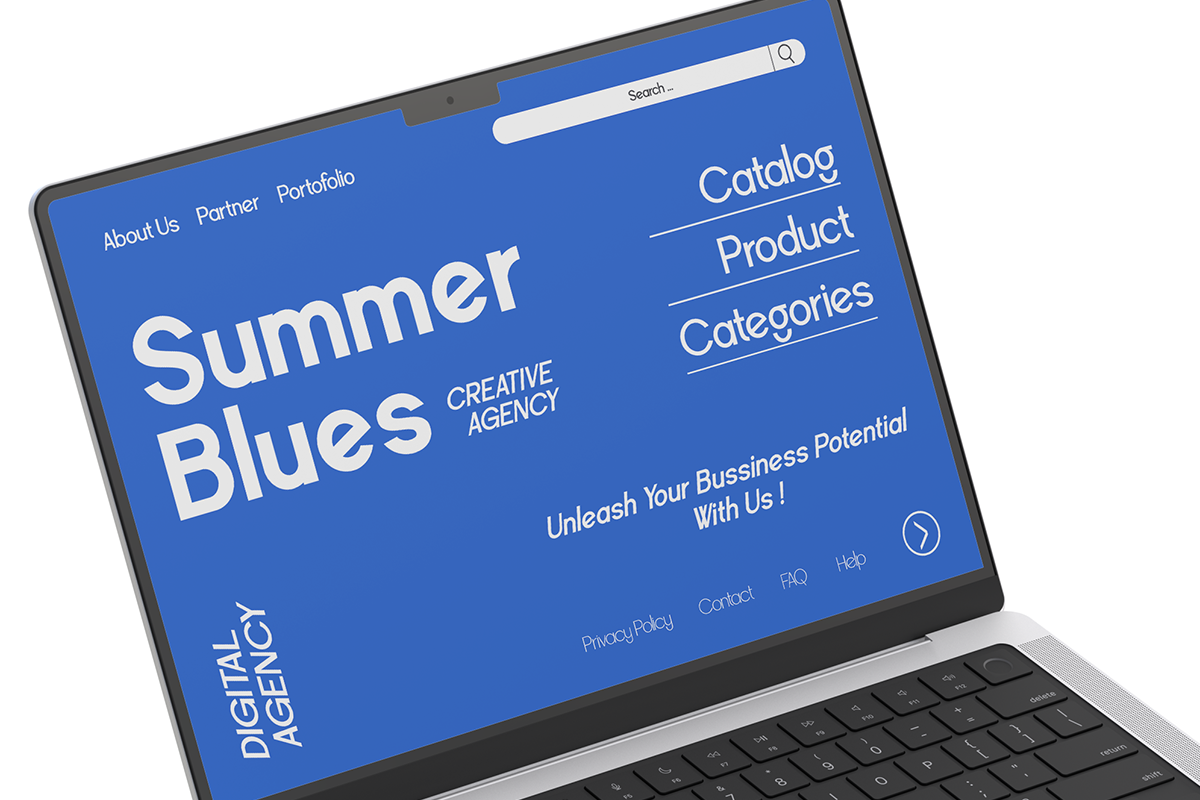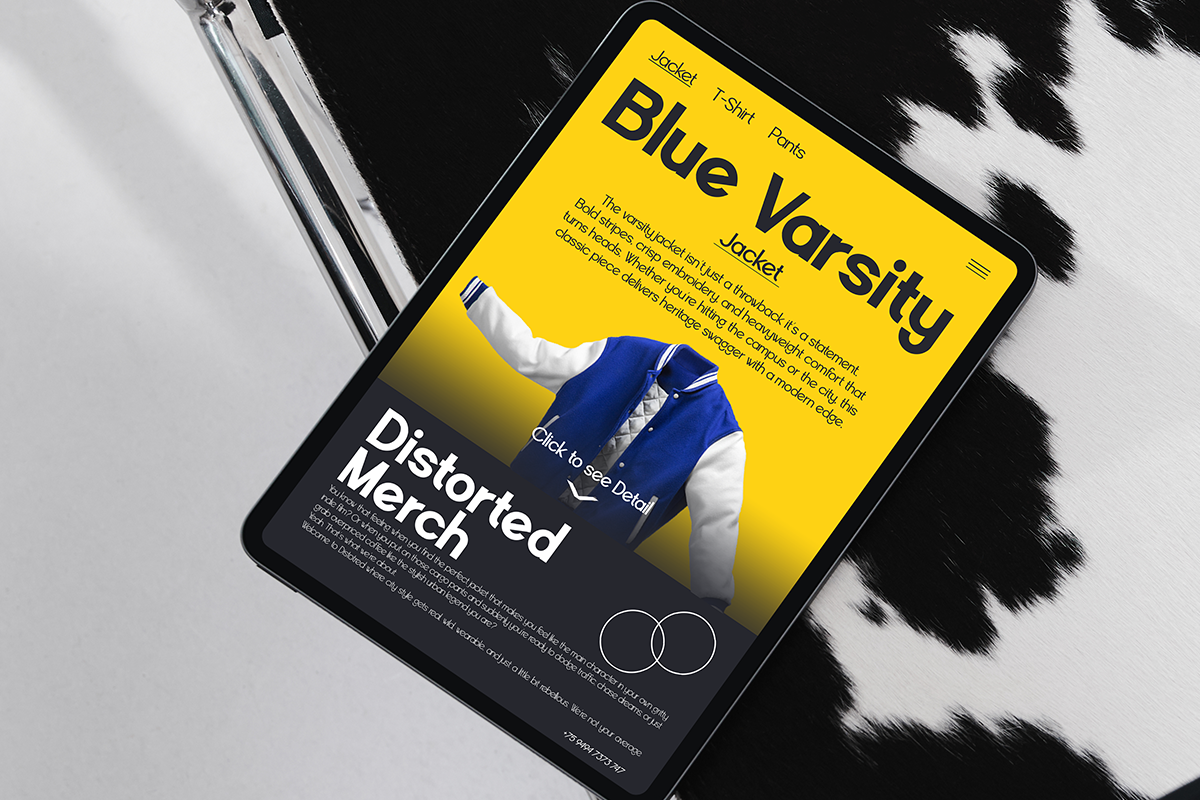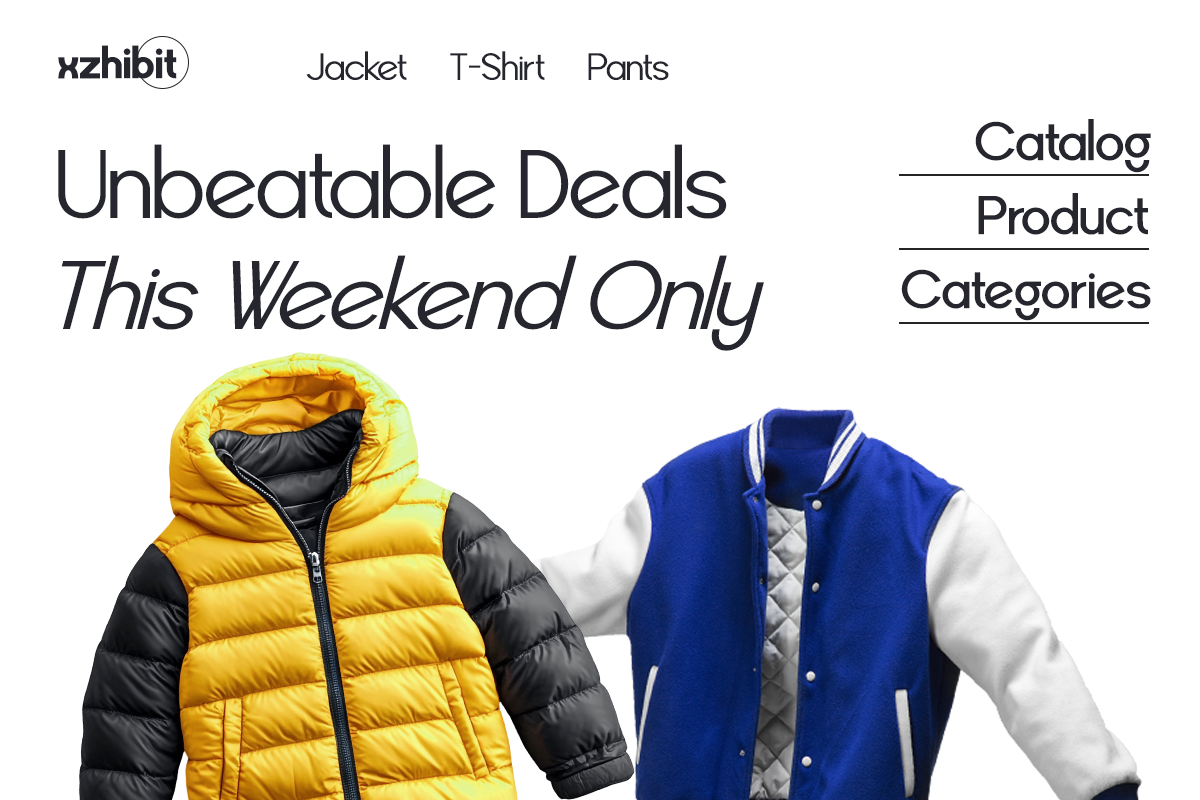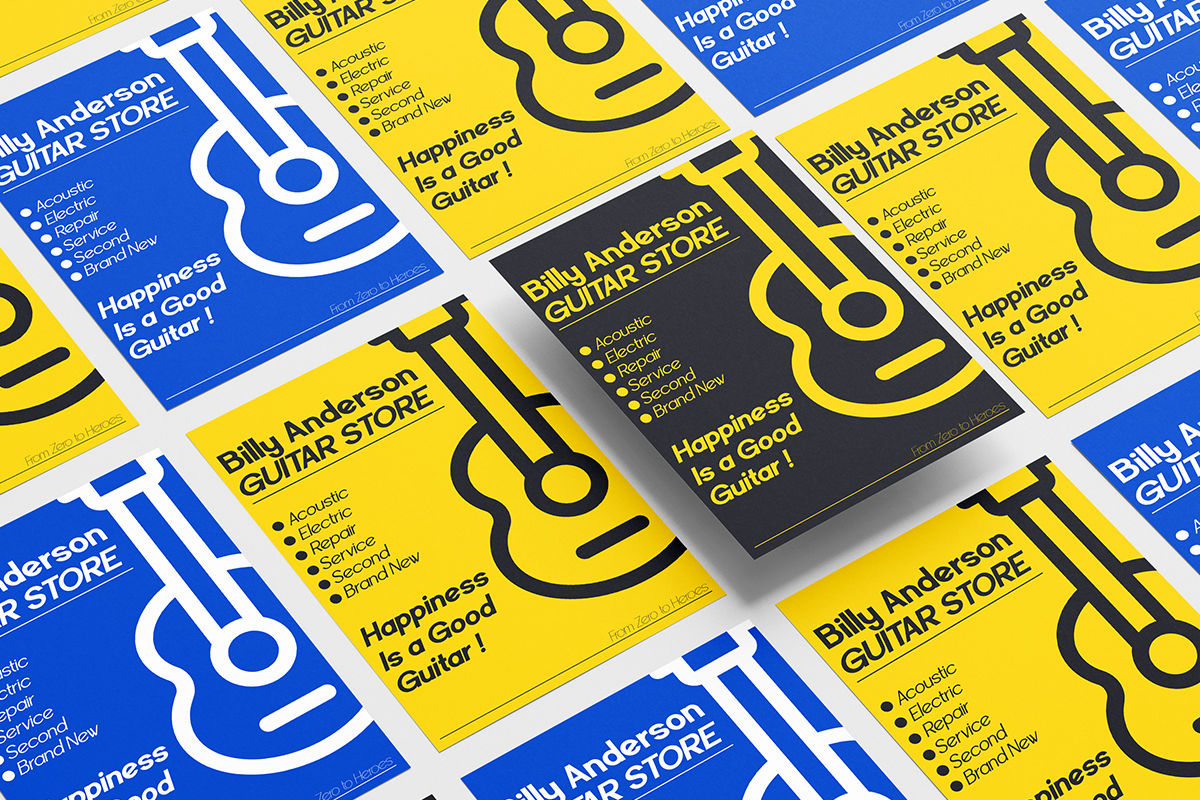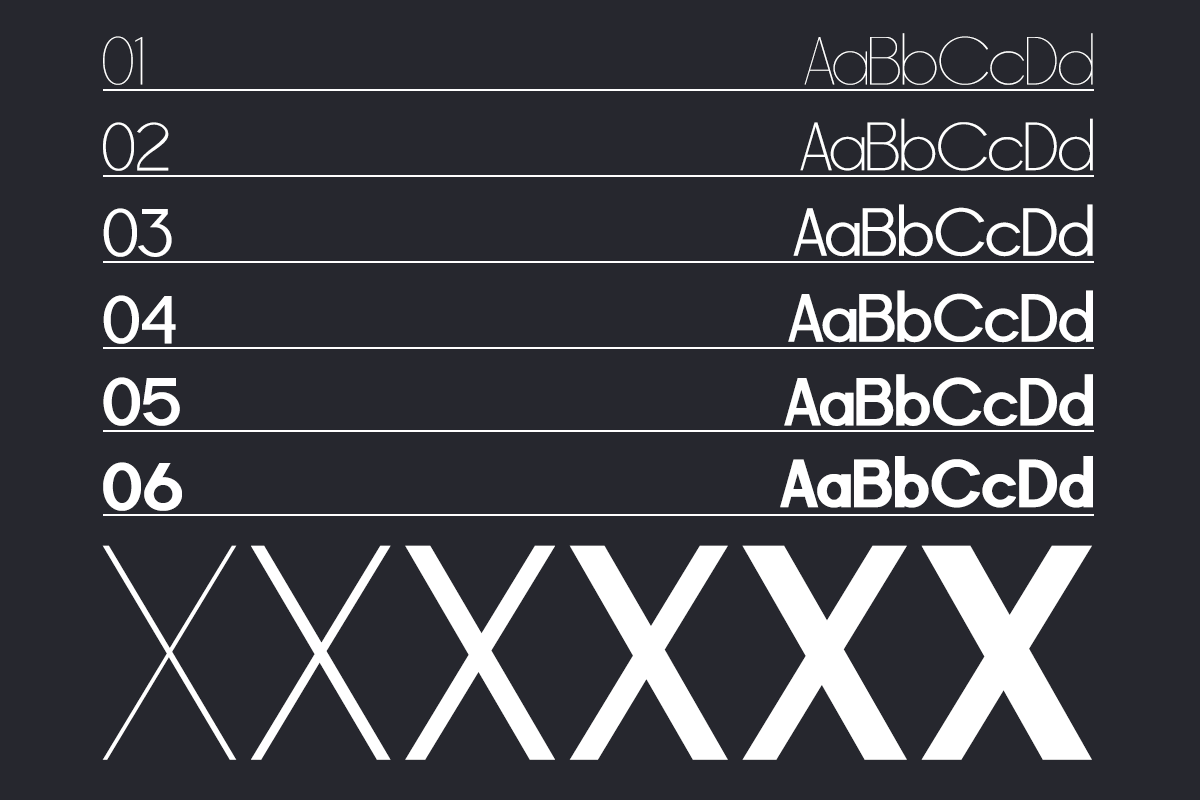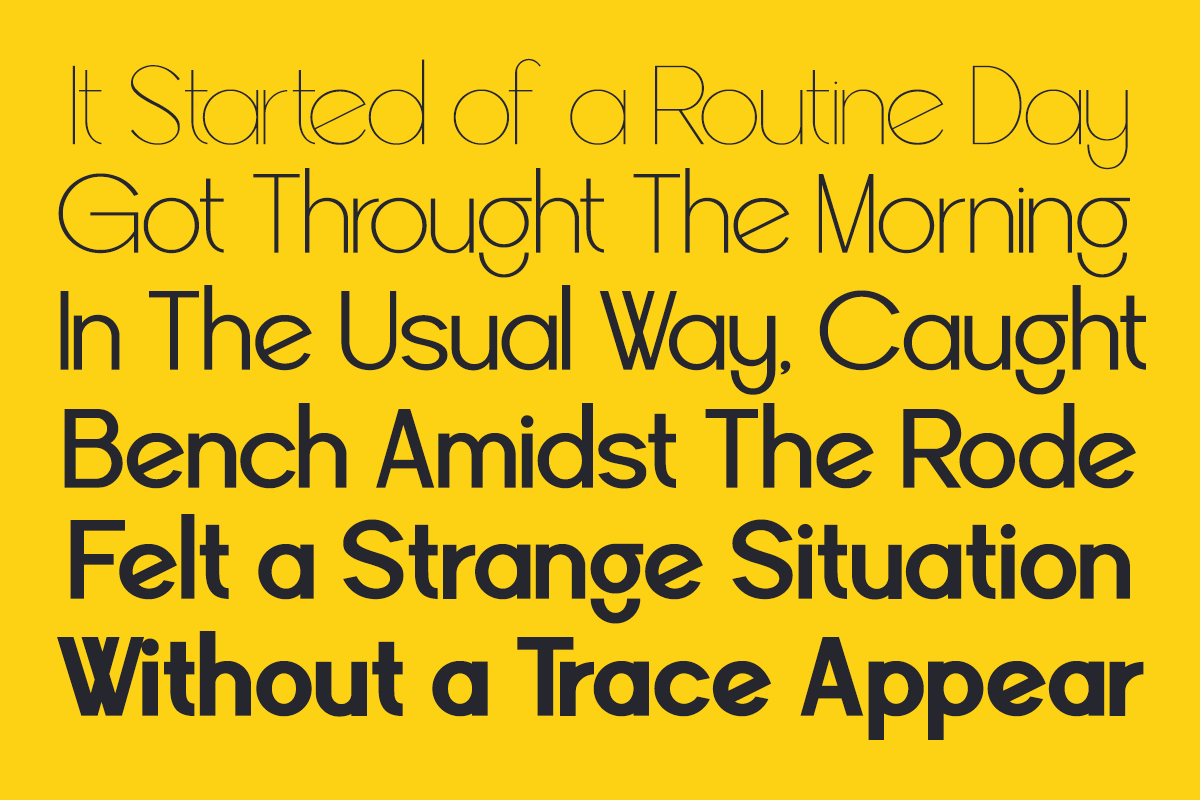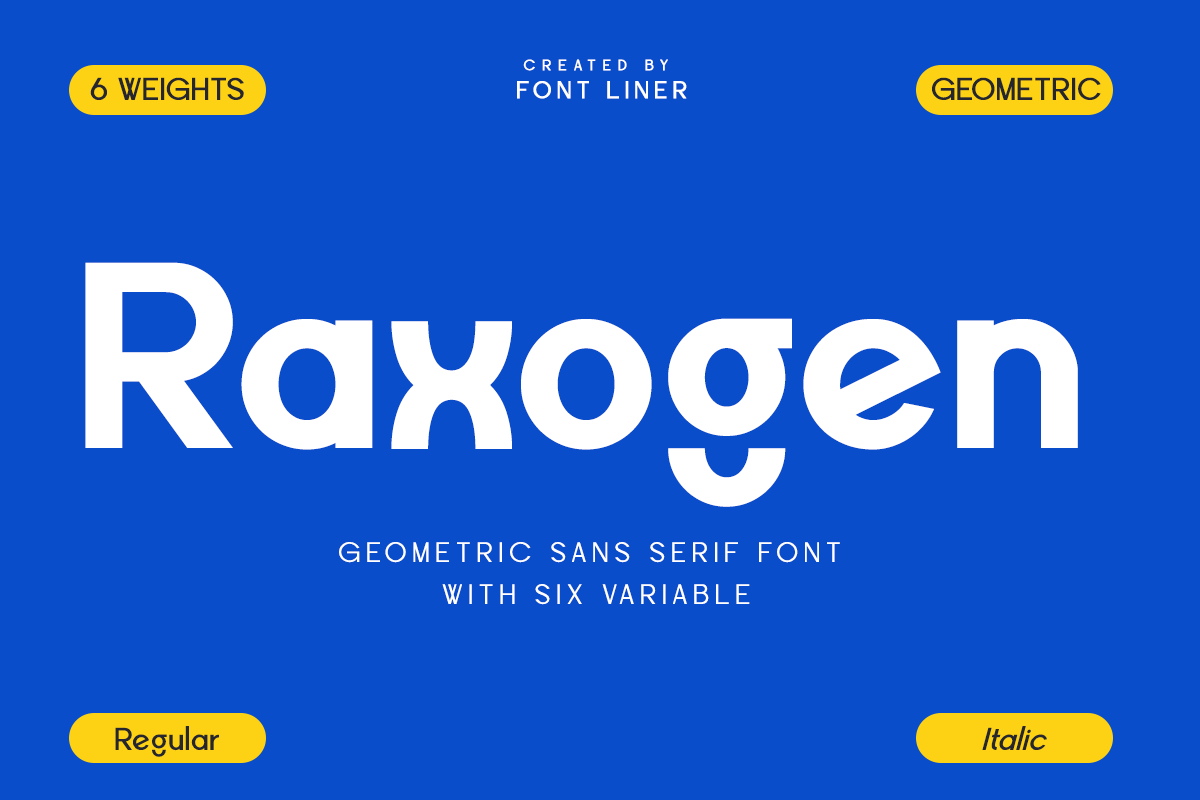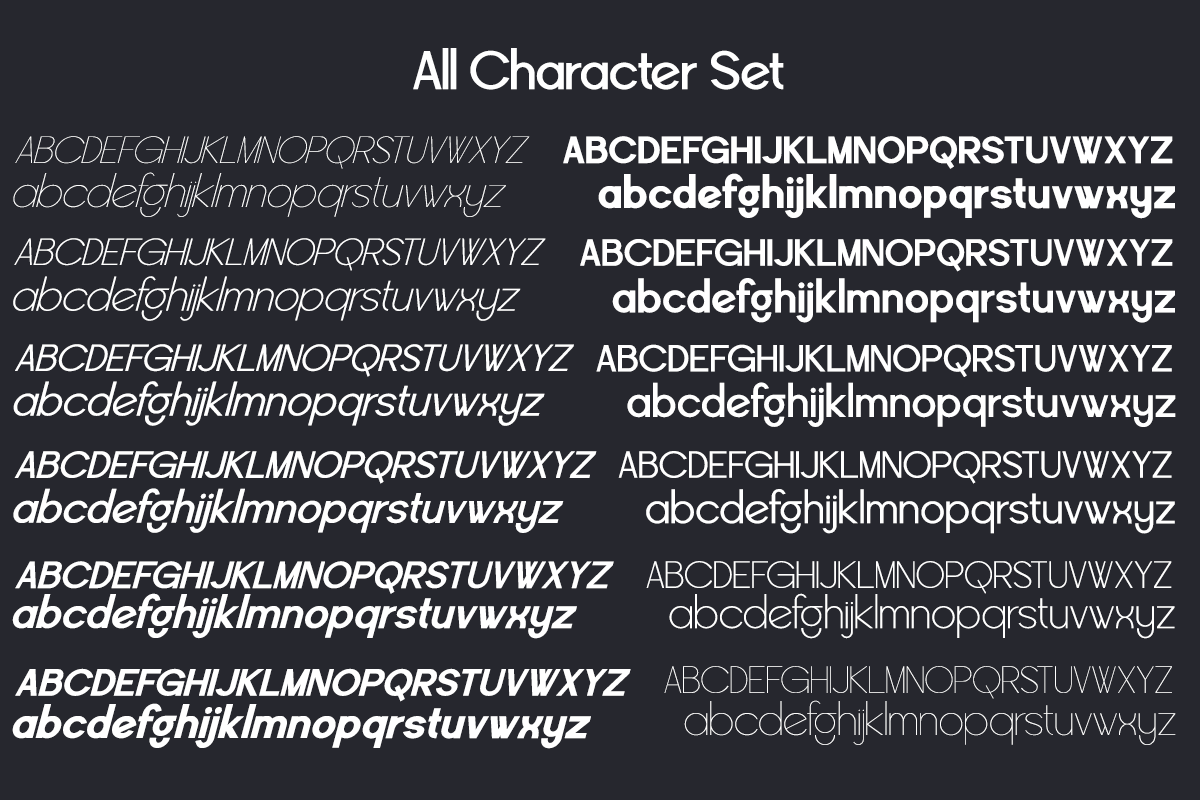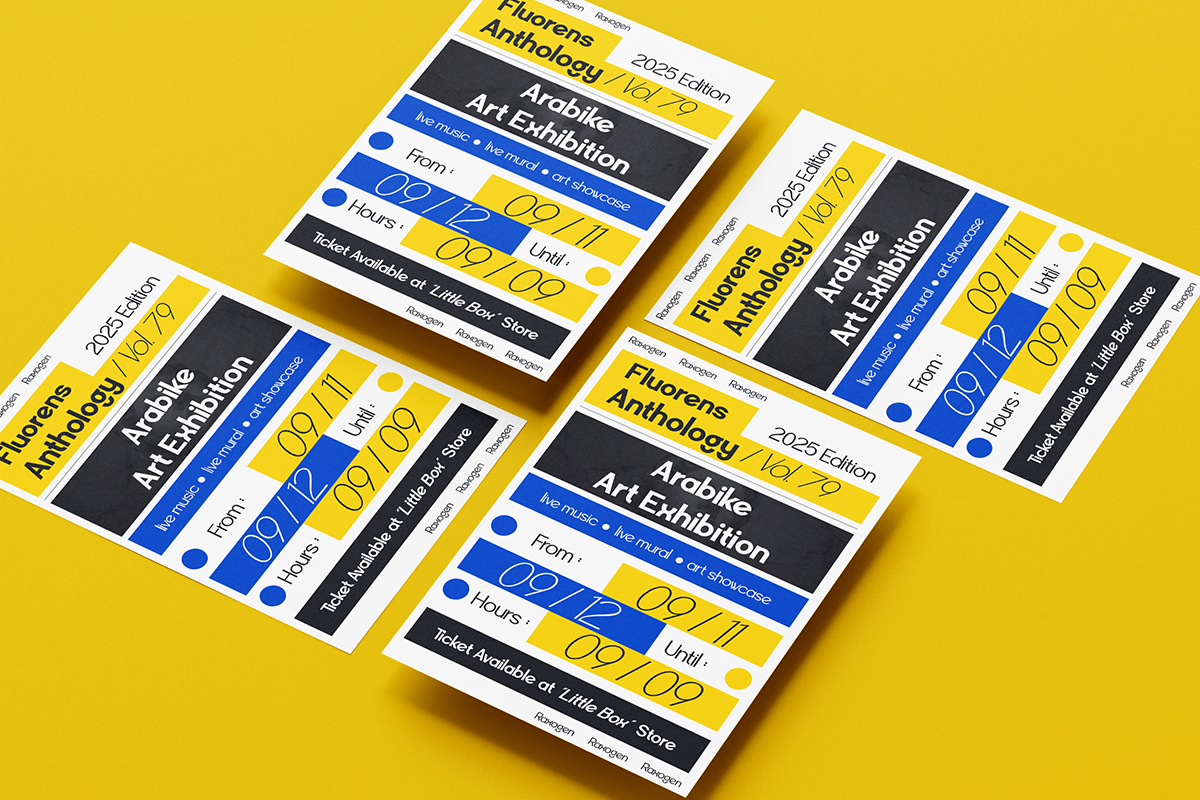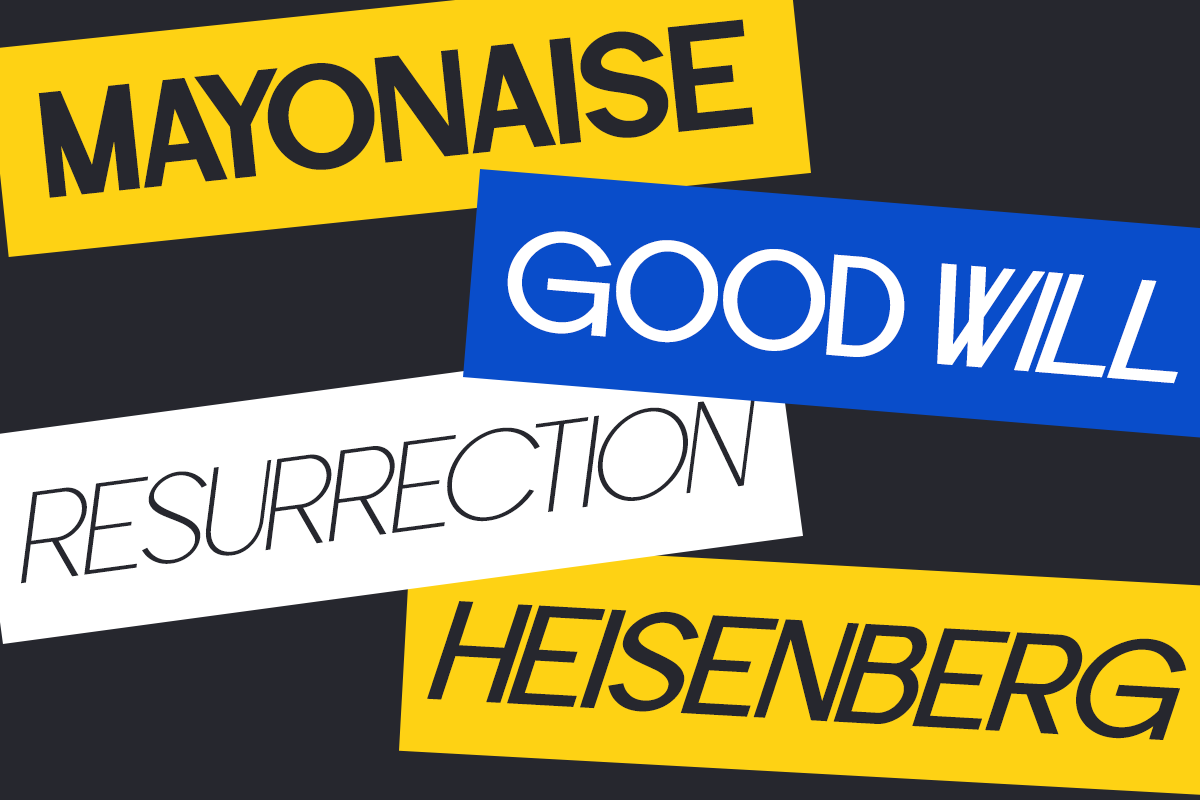
Raxogen - Geometric Variable Font
Raxogen is Geometric Sans Serif font with six variable designed with today’s caring brands in mind. This modern font combines clean, geometric precision with subtle humanist elements, creating a perfect balance of functionality and warmth. Raxogen perfect for branding, UI design, advertising, and editorial work. Whether you’re crafting a corporate identity or designing a cutting-edge app with delivers both visual impact and functional excellence.